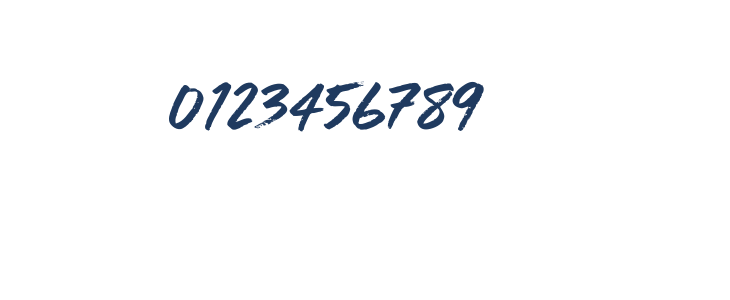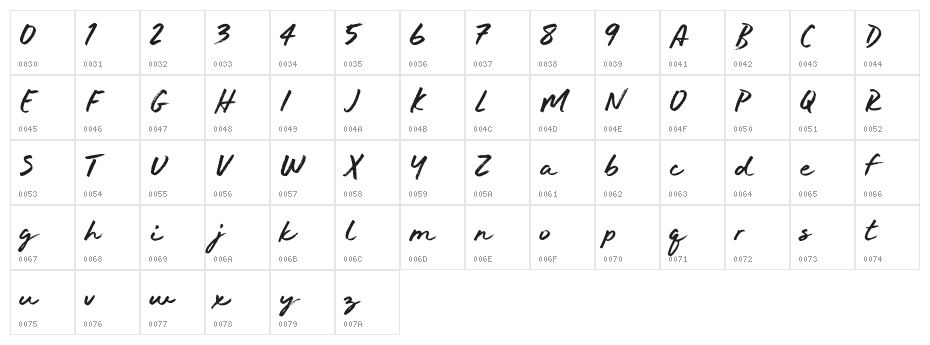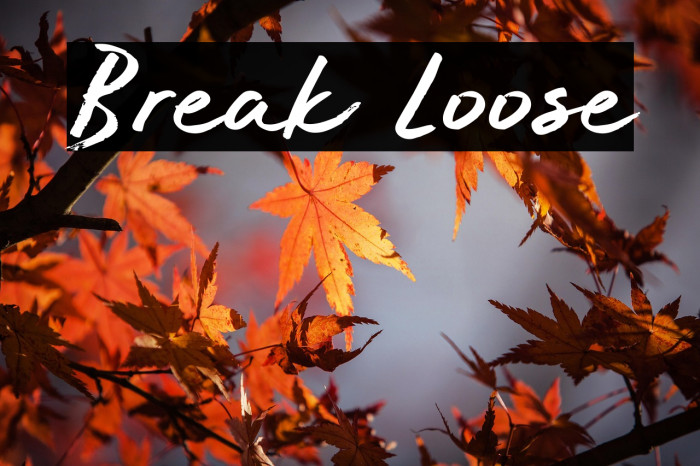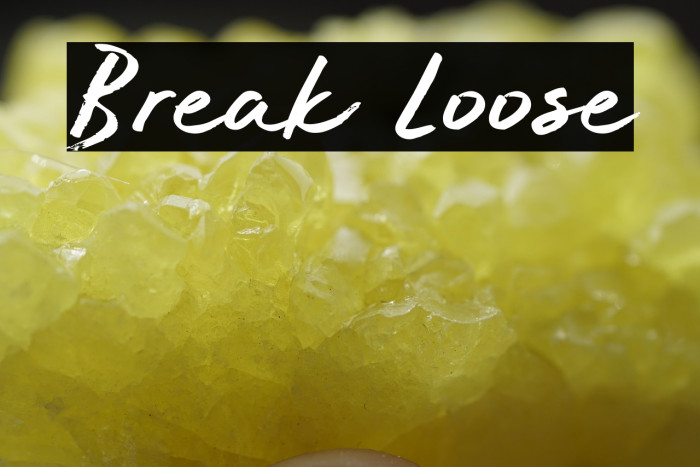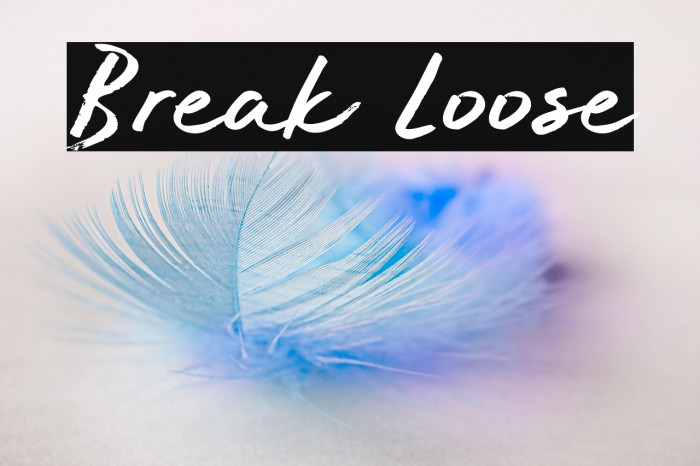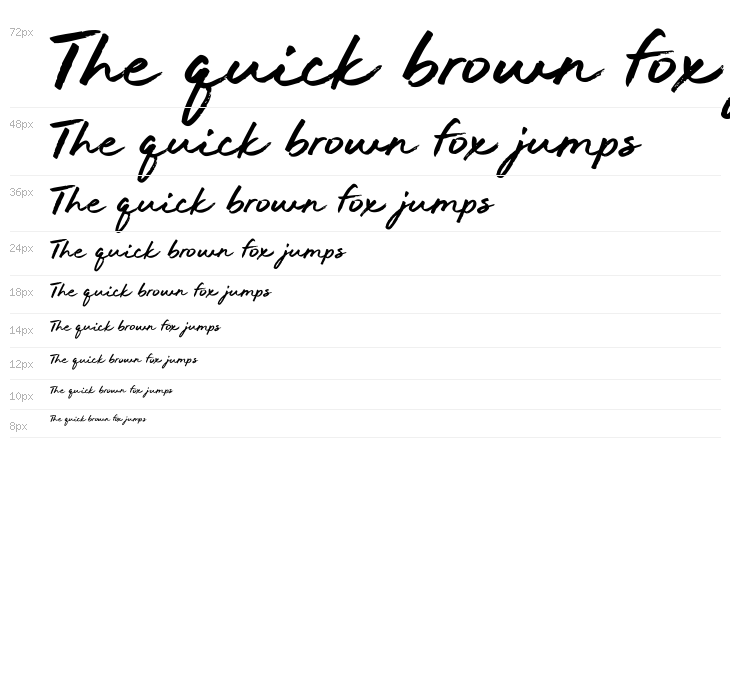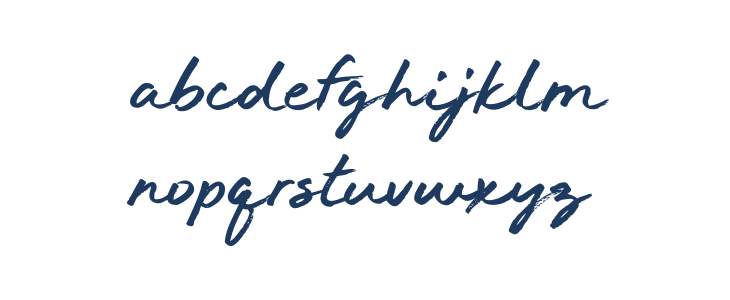
Break Loose Font
Break Loose Description
This font exudes a dynamic and energetic feel with its brush-like strokes and slightly irregular edges, giving it a hand-painted appearance. The uppercase and lowercase letters are fluid and connected, creating a sense of movement and spontaneity. The numbers and special characters maintain this lively style, making them stand out with their bold presence. The overall design is expressive and artistic, ideal for projects that require a personal touch or a creative flair.
| Proposed Projects | Ideal for branding, posters, artistic projects, and any design requiring a bold, personal touch. |